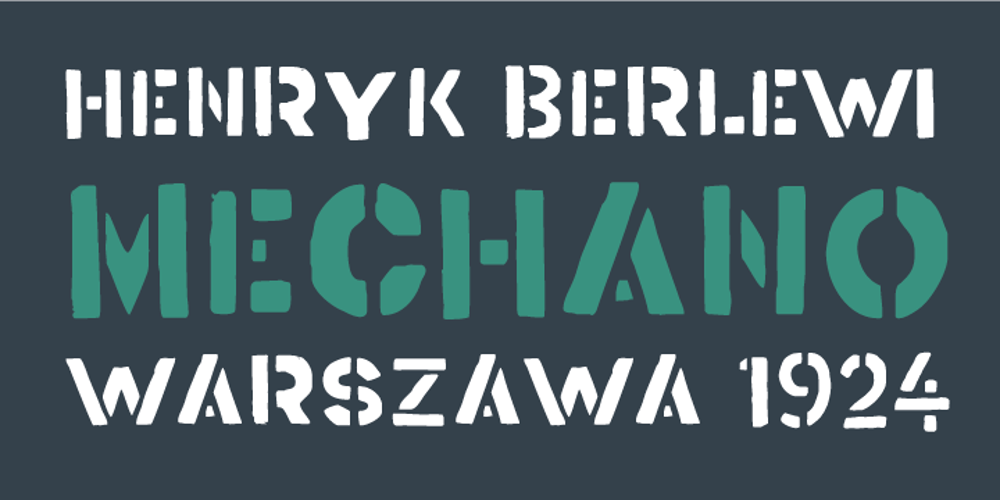
Berlewi FA Font Family was designed by Artur Frankowski and published by Fontarte. Berlewi FA contains 1 styles and family package options. FA Berlewi is inspired by stencil lettering of a vanguard creator, Henryk Berlewi, who was a precursor of contemporary typography, a painter and a creator of the mechano-facture (Mechano-Faktura) theory. In 1924 he designed a poster for his mechano-facture one-man show in Warsaw Austro-Daimler car salon. An attention-grabbing composition with stencil lettering was doubtless a real innovation and according to Berlewi – the first typographic poster to be made in Poland.